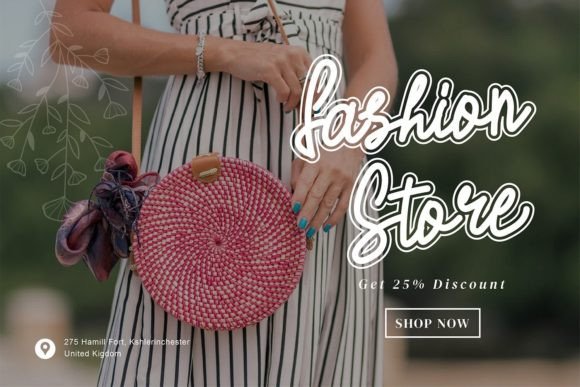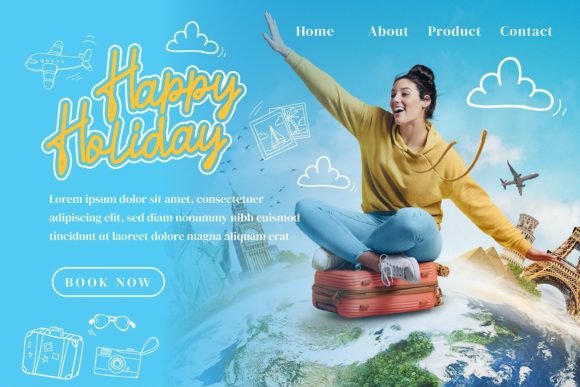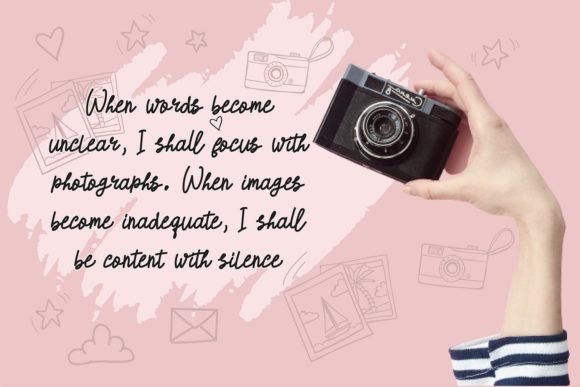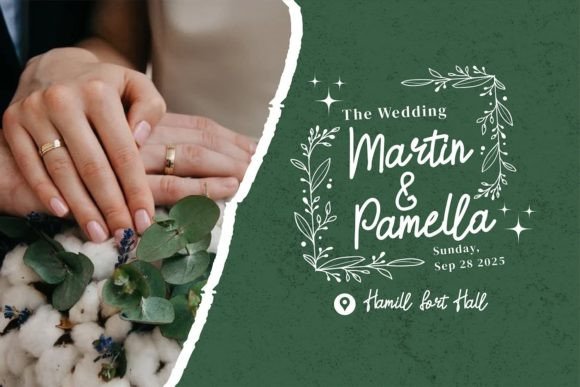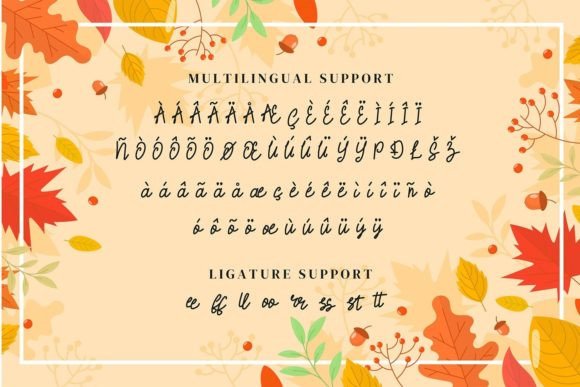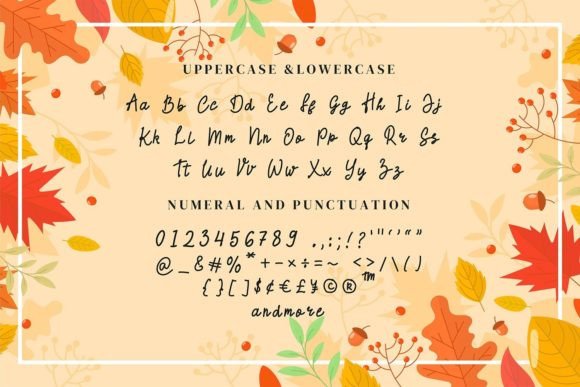
Queen Baselline Font
Queen Baselline, a stylish and incredibly elegant script font, is designed to make a striking impact on various design projects. From wedding invitations to thank-you cards, quotes, greeting cards, logos, business cards, and more, Queen Baselline adds a touch of sophistication and handwritten charm to your creations.
The font’s stylish and elegant script is crafted to convey a sense of refinement, making it well-suited for projects that require a high level of visual appeal. Whether used for formal occasions or to create a distinctive brand identity, Queen Baselline stands out as a font that combines style and elegance.
Wedding invitations benefit from the font’s elegant script, setting the tone for a luxurious and memorable event. Thank-you cards and quotes gain a special touch, turning expressions of gratitude or inspirational messages into visually captivating elements.
Queen Baselline’s versatility is evident in its compatibility with various design contexts. Logos and business cards, in particular, can benefit from the font’s stylish appearance, creating a lasting and sophisticated impression.
The PUA encoding of Queen Baselline ensures easy access to all glyphs and swashes, providing a seamless experience for customization. This feature allows you to explore different design possibilities and tailor the font to suit the unique requirements of your projects.
Incorporate Queen Baselline into your design toolkit and witness how its stylish and elegant script transforms your creations. Whether you’re working on personal or professional projects, Queen Baselline is crafted to enhance your designs with its sophisticated and handwritten touch.